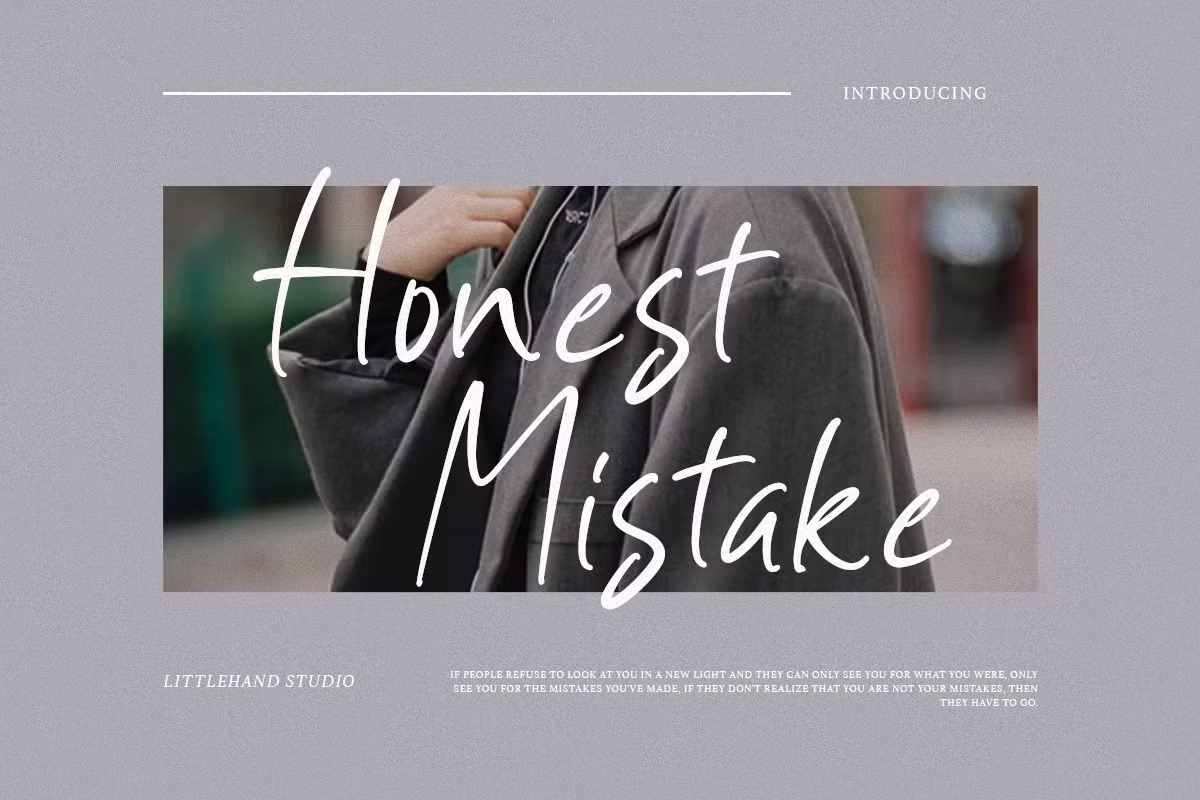
Honest Mistake – Casual Handwritten Font Free Download is a relaxed and expressive typeface that captures the charm of natural handwriting. Ideal for social media graphics, quotes, greeting cards, and personal branding, this font adds a friendly, down-to-earth vibe to any creative project.
With its imperfect strokes and playful rhythm, Honest Mistake – Casual Handwritten Font Free Download brings authenticity and warmth to your designs. It’s a perfect choice when you want your text to feel personal and approachable. Whether you’re crafting a lifestyle brand or adding a human touch to digital content, this font delivers personality in every line. Try it now to see how it fits your vision before committing to a commercial license.